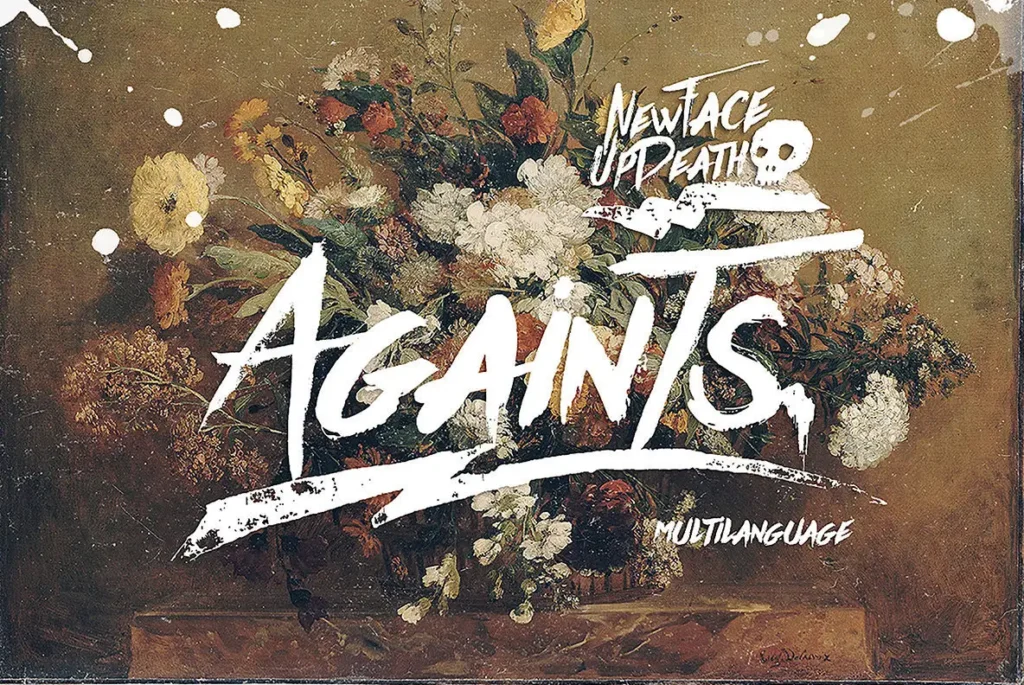
Againts Font is an amazing option for designers wanting to make a statement and edgy impression with their designs. The right font can turn a brand, a poster, or a social media post into something truly spectacular, especially now when visual identity is crucial.
The Againts Font is a handcrafted typeface created with expressive brush strokes, giving it an authentic, hand-painted feel.. It embodies grit, attitude, and authenticity which makes it loved by designers looking to produce raw and energetic artwork.
What is Againts Font?
The Againts Font is a script typeface forged to capture a defiant handcrafted appearance. Gritty outlines and energetic movements emulate the impression of paintbrush writing, suitable for retro or punk styles.
TokoPress Designed font gained popularity due to its indelicate influence and strong appearance. It is a type of display font that works best for logos, headlines, and posters with short but impactful text
You may encounter different versions such as Againts Refresh Font or Againts Regular Font, each providing subtle changes in appearance but maintaining the strong brush-stroke-like essence of the original.
Key Features of the Againts Typeface
-  Hand-Painted Look – Authentic brush texture that brings raw, handcrafted vibes.
- ✅ Bold & Expressive – Strong, dramatic strokes perfect for grabbing attention.
- ✅ Vintage/Retro Feel – Suits retro, grunge, and underground design aesthetics.
- ✅ Uppercase-Only – Designed mainly for impactful, uppercase headlines.
Applications of the Againts Font
Here’s how designers and creatives typically use the Againts Font:
Logo Design
Perfect for branding that needs a tough, street-style edge. Adds a rebellious tone to visual identity.
Movie Titles or Posters
Works great in action or horror genres, creating a dramatic atmosphere with its aggressive strokes.
Apparel & Merchandise
Frequently used in custom t-shirt graphics, skatewear, and band merchandise.
Social Media Graphics
Ideal for bold Instagram posts, YouTube thumbnails, and TikTok cover images.
Packaging & Labels
Adds grit and character to product packaging, especially for alternative or niche brands.
Conclusion:Againts Font
The Againts Font is a go-to choice for creatives who want to add punch, grit, and authenticity to their work. Its brush-painted texture and retro style make it versatile across logos, apparel, posters, and digital media.